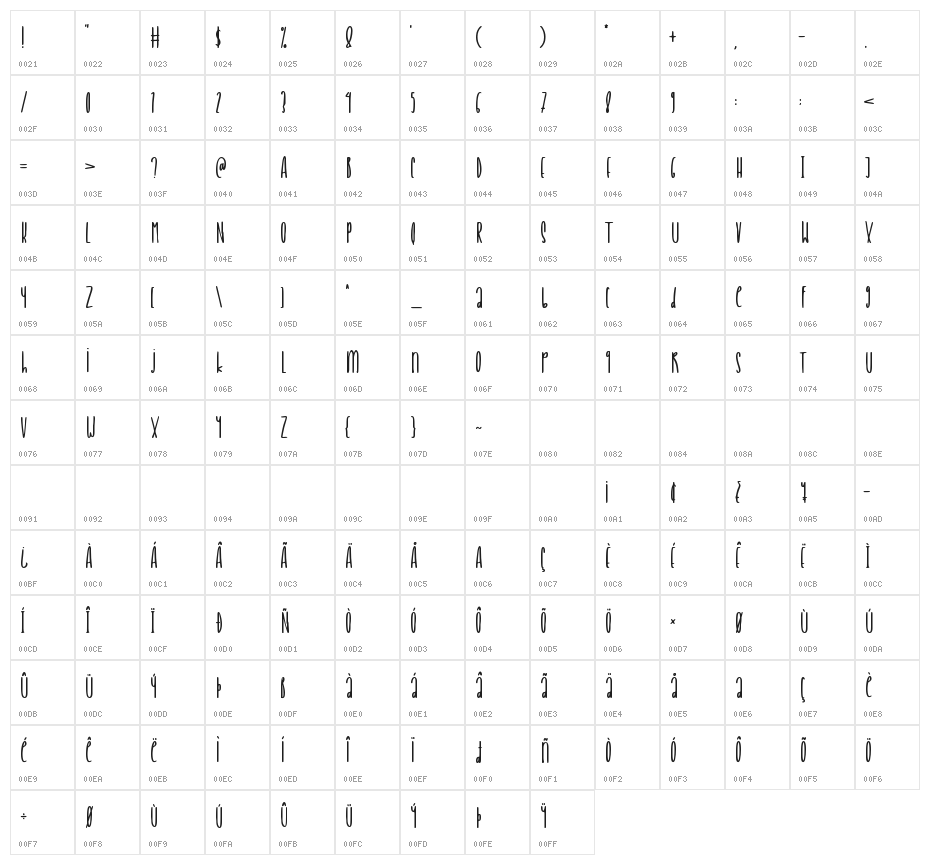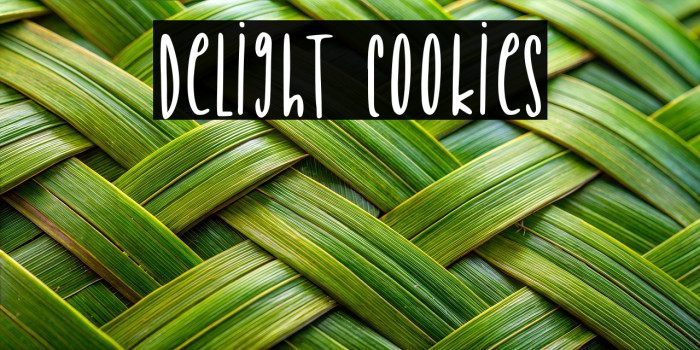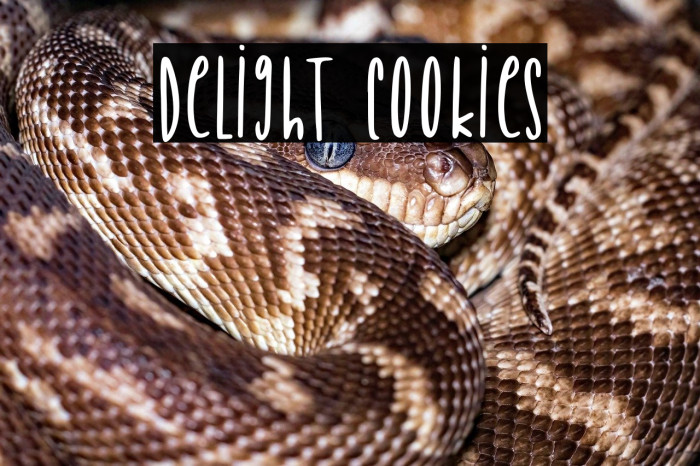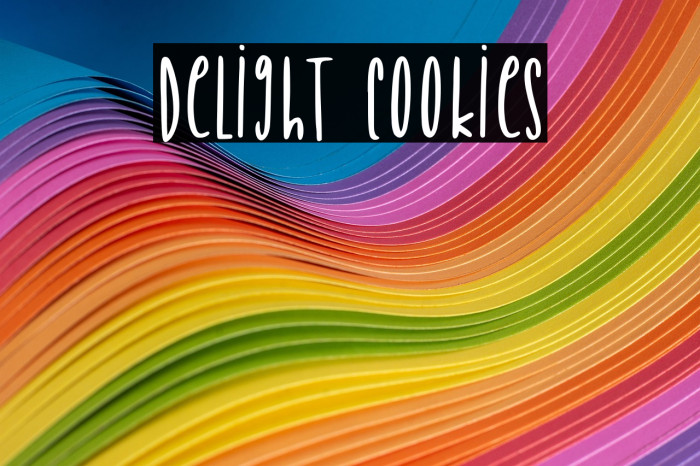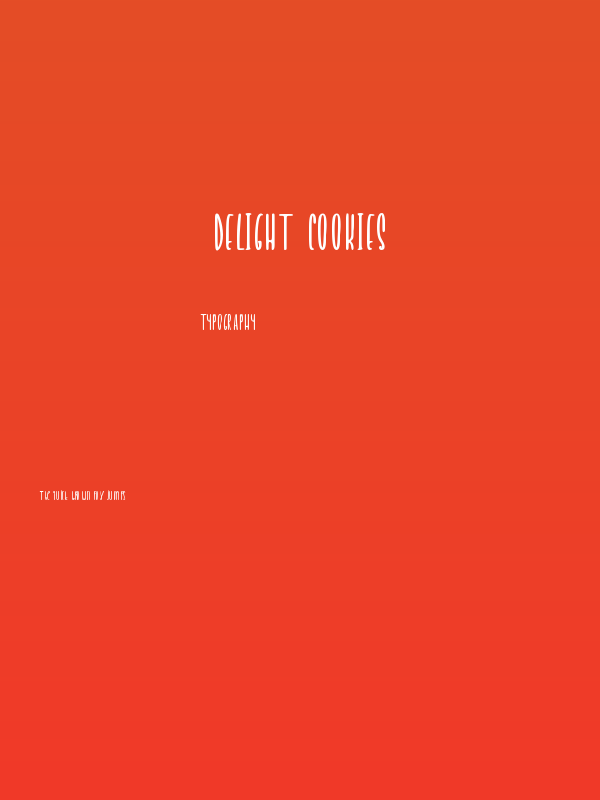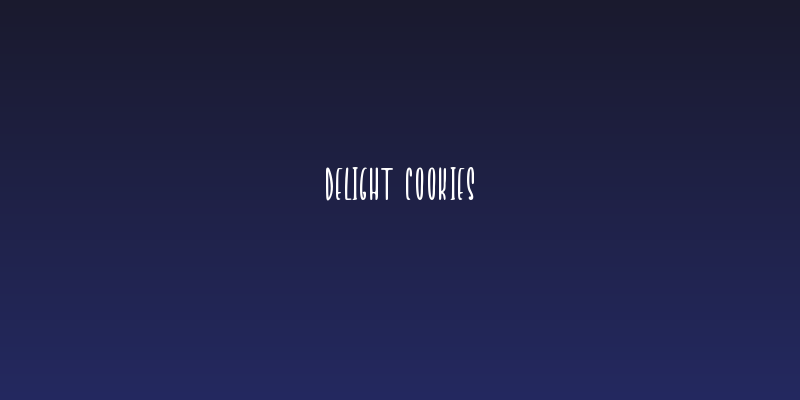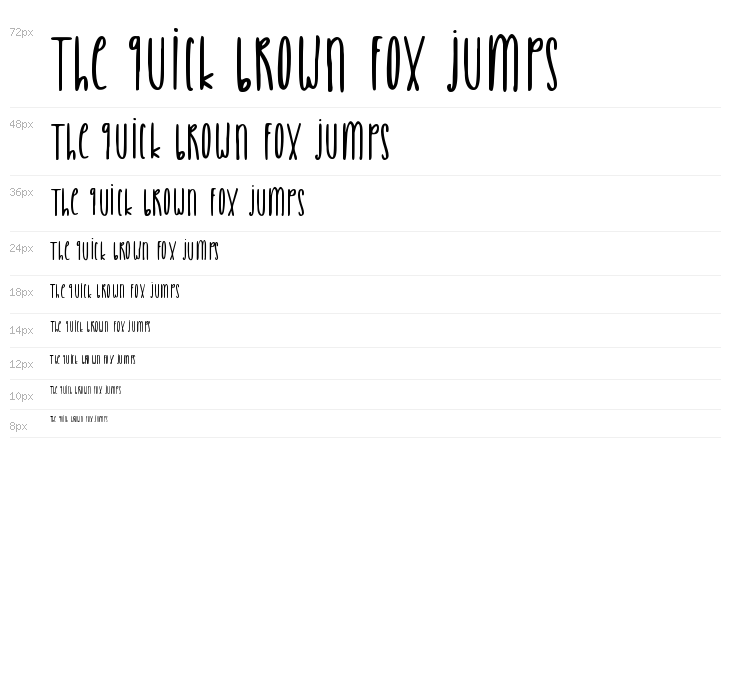
Delight Cookies Font
Delight Cookies Description
This font features a playful and whimsical design, characterized by its tall, narrow letters with a hand-drawn feel. The strokes are uneven, adding a casual and friendly touch to the overall appearance. The uppercase and lowercase letters maintain a consistent style, with slight variations that enhance its organic look. Numbers and special characters are crafted with the same playful spirit, making them suitable for creative projects. The font's unique style makes it stand out, perfect for adding a personal touch to any design.
| Width | Condensed |
| Use Case | Logos, Headlines, Posters |
| Proposed Projects | Ideal for children's books, greeting cards, playful branding, and creative posters. |